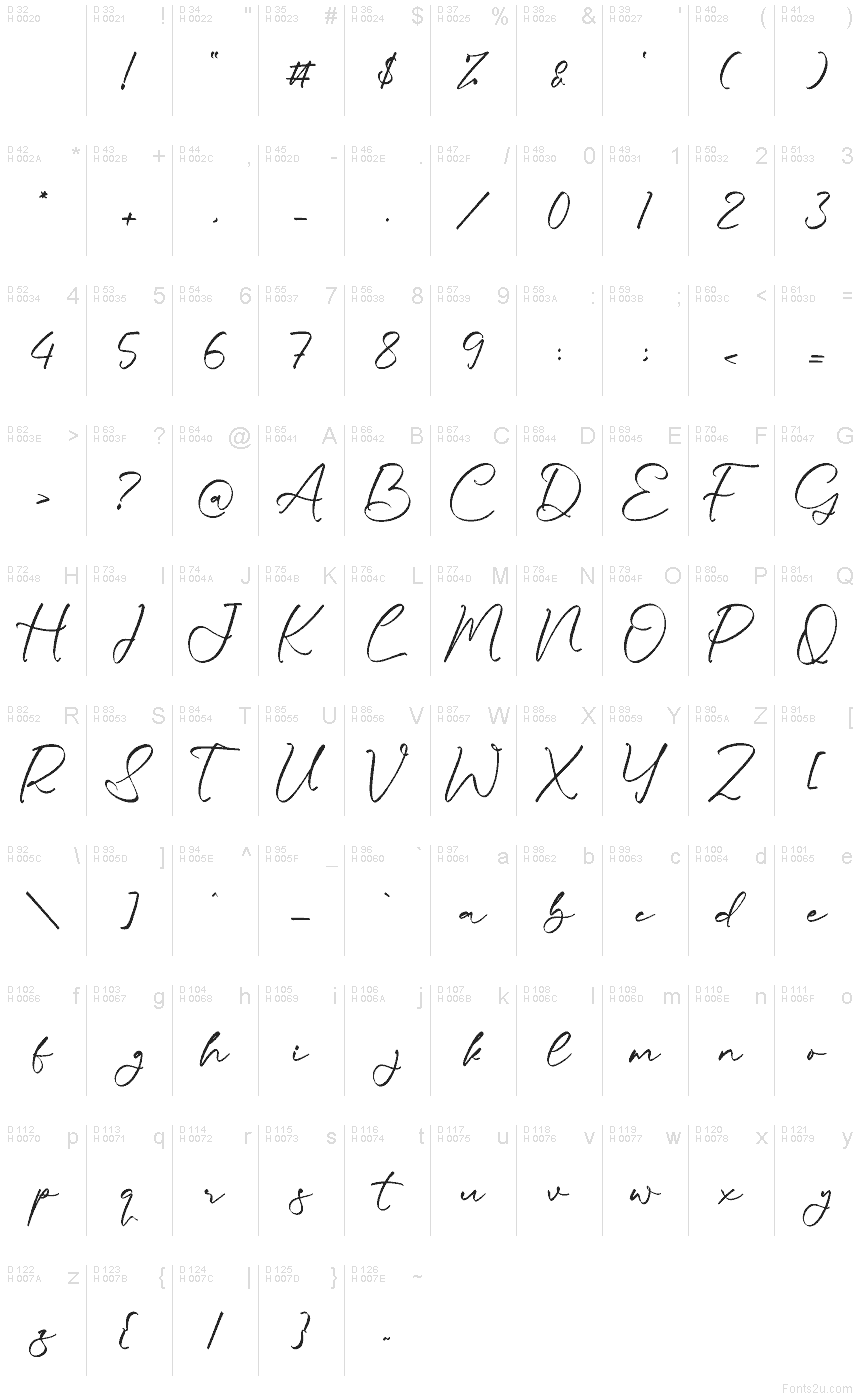
Soolera Bundo
Soolera Bundo font, designed by Letterena Studios, is a free handwritten font with a light weight. It showcases an elegant, expressive, and sophisticated style with vintage inspiration and artistic flair. Its flowing curves create distinctive character shapes for each glyph while the wide spacing ensures unparalleled readability.